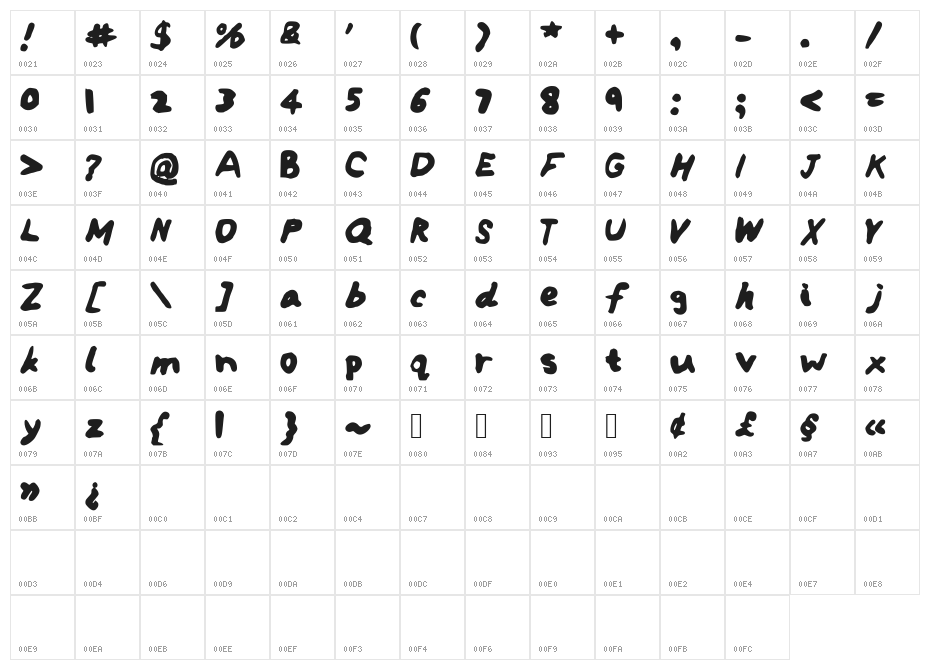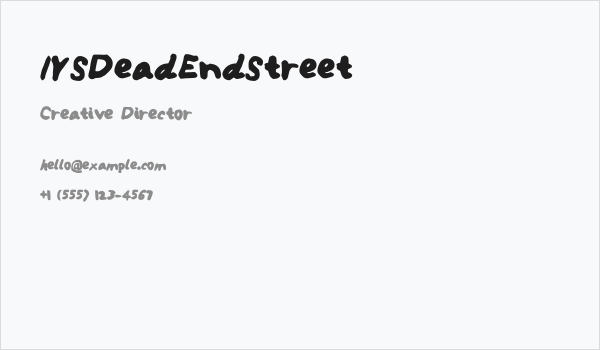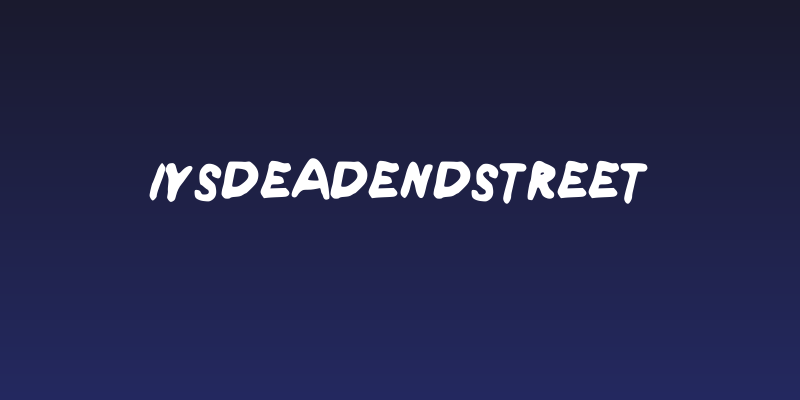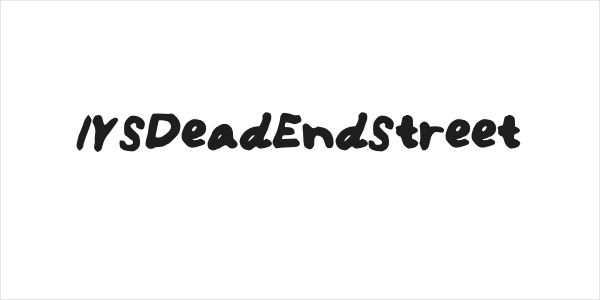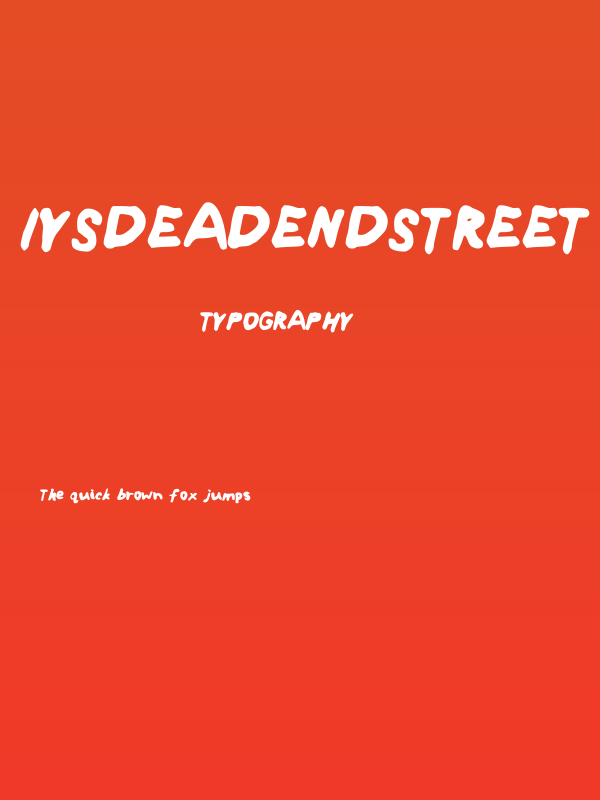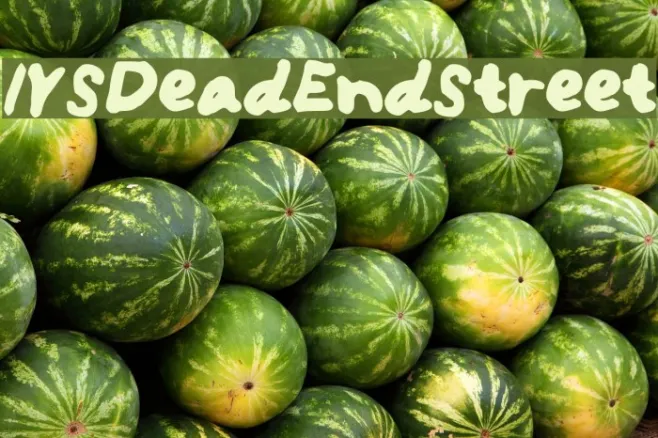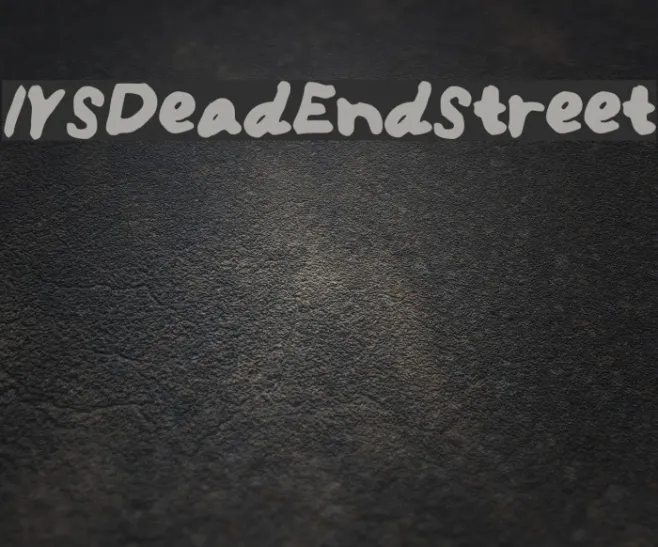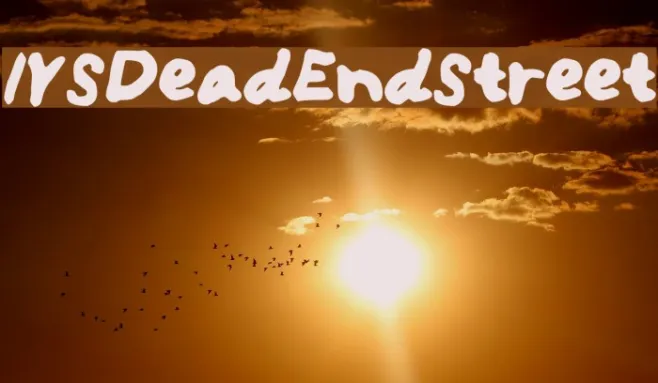
IYSDeadEndStreet Font
IYSDeadEndStreet Description
This font features a bold, playful style with a handwritten appearance. The characters are thick and rounded, giving them a friendly and approachable look. The uppercase and lowercase letters maintain a consistent style, with a slight slant that adds to the casual feel. The numbers and special characters are equally bold, ensuring readability and uniformity across all glyphs. The font's organic, freeform shapes make it ideal for projects that require a personal touch or a sense of whimsy. Its unique style stands out, making it suitable for creative and informal designs.
| Overall Style | Playful, Casual |
| Use Case | Headlines, Logos, Informal Text |
| Proposed Projects | Ideal for children's books, greeting cards, playful branding, and creative posters. |